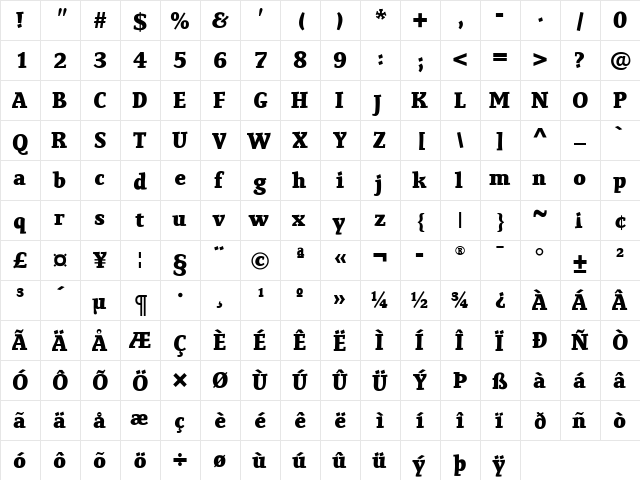
Poseidon Bold
Design Context for Poseidon Typeface
Poseidon takes a measured approach to typography — its balanced proportions and neutral character make it a reliable workhorse for both digital and print work. Its bold stroke weight gives it real presence on the page.